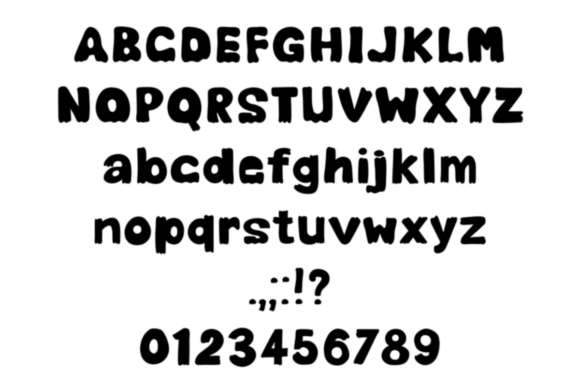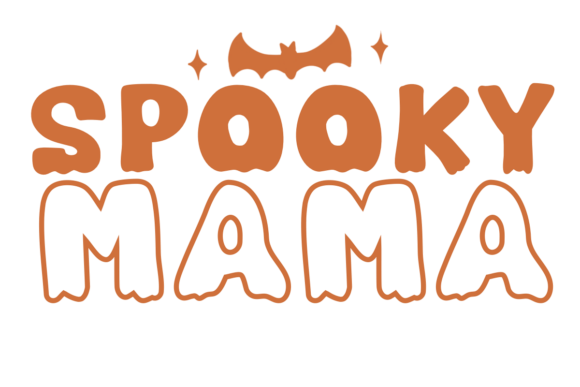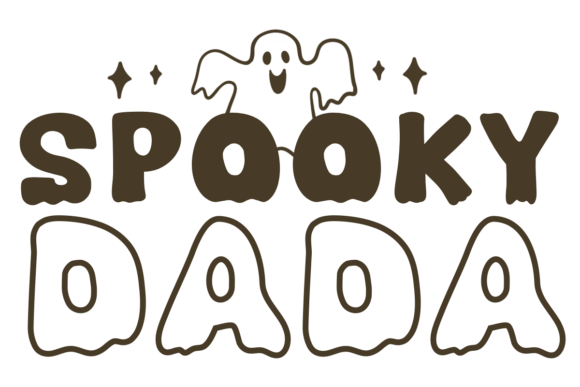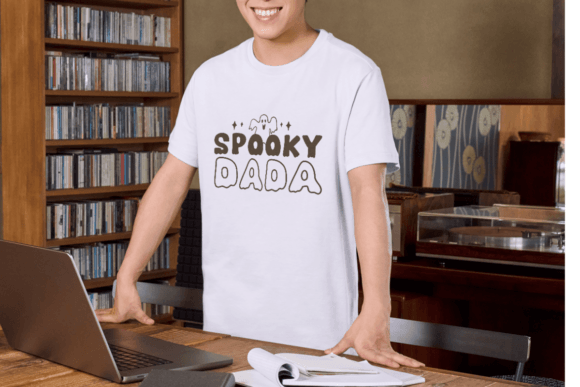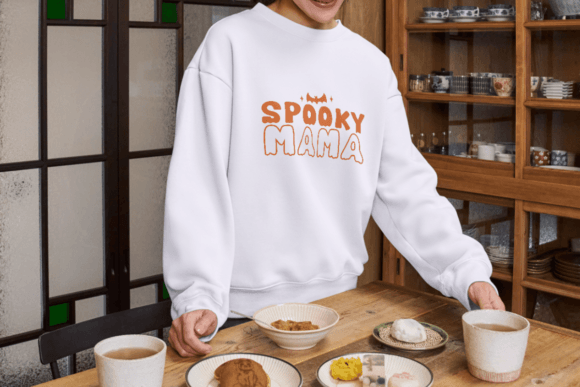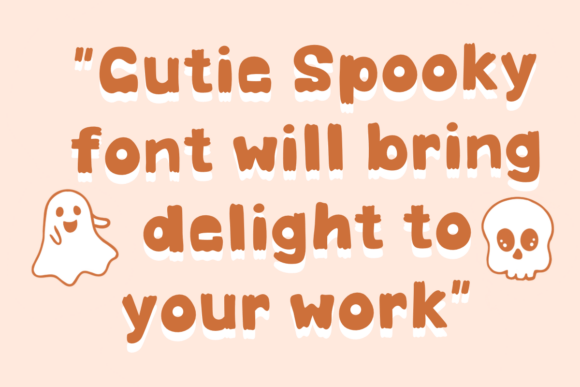
Introducing Cutie Spooky Retro: The Ultimate Font for Spooky Season
As the spooky season approaches, designers and crafters are on the lookout for the perfect font to add a touch of nostalgia and vintage charm to their Halloween-themed projects. Look no further than Cutie Spooky Retro, a bold and quirky font that’s sure to bring a groovy feel to your designs. Inspired by retro designs with a playful spooky twist, this font is perfect for adding a fun, old-school charm to posters, invitations, social media graphics, and more.
The Retro Vibe of Cutie Spooky Retro
Cutie Spooky Retro is a font that’s deeply rooted in retro design. Its bold, quirky letters and funky curves evoke the nostalgia of a bygone era, while its playful spooky twist adds a modern touch. Whether you’re designing for a haunted house event, a Halloween party, or simply want to add a retro flair to your work, this font is sure to deliver. With Cutie Spooky Retro, you can create designs that are both cute and spooky, with a touch of classic style.
Cutie Spooky Retro is a versatile font that’s perfect for designers and crafters of all levels. Its bold and quirky design makes it ideal for use in a variety of projects, from posters and invitations to social media graphics and more. Whether you’re creating designs for a client or for your own personal projects, this font is sure to add a touch of personality and style.
Key Features of Cutie Spooky Retro
- Retro-inspired design: Cutie Spooky Retro is inspired by retro designs with a playful spooky twist.
- Bold and quirky letters: The font features bold, quirky letters that are sure to add a touch of personality to your designs.
- Funky curves: The font’s funky curves add a groovy feel to your designs.
- Perfect for Halloween-themed projects: Cutie Spooky Retro is perfect for adding a touch of nostalgia and vintage charm to your Halloween-themed projects.
- Versatile: The font is versatile and can be used in a variety of projects, from posters and invitations to social media graphics and more.
Using Cutie Spooky Retro in Your Designs
Using Cutie Spooky Retro in your designs is easy. Here are a few tips to get you started:
- Pair it with other retro-inspired fonts: Pair Cutie Spooky Retro with other retro-inspired fonts to create a cohesive look.
- Use it in bold and colorful designs: The font’s bold and quirky design makes it perfect for use in bold and colorful designs.
- Add some spooky elements: Add some spooky elements, such as bats, ghosts, or jack-o-lanterns, to give your designs a playful spooky twist.
Cutie Spooky Retro is a unique and versatile font that’s perfect for designers and crafters looking to add a touch of nostalgia and vintage charm to their Halloween-themed projects. With its bold and quirky design, funky curves, and playful spooky twist, this font is sure to deliver both cuteness and spooky fun with a touch of classic style. So why wait? Download Cutie Spooky Retro today and start creating your own spooky and retro-inspired designs!
- What is Cutie Spooky Retro?: Cutie Spooky Retro is a font that’s inspired by retro designs with a playful spooky twist.
- What is the font perfect for?: The font is perfect for Halloween-themed projects, such as posters, invitations, and social media graphics.